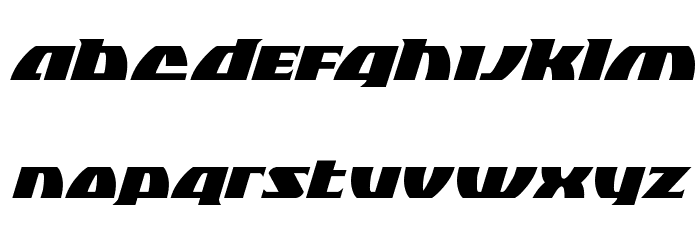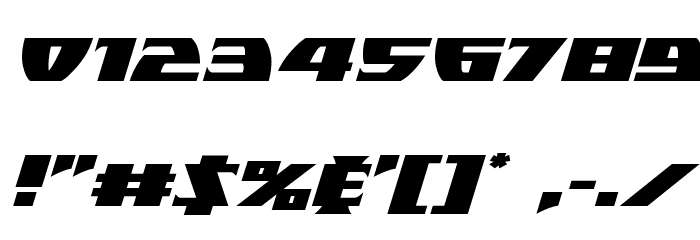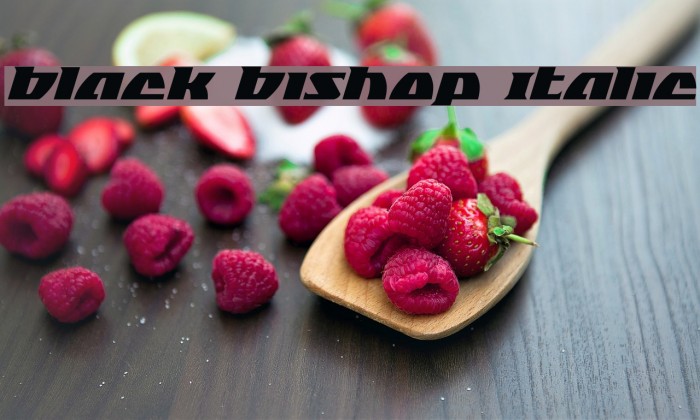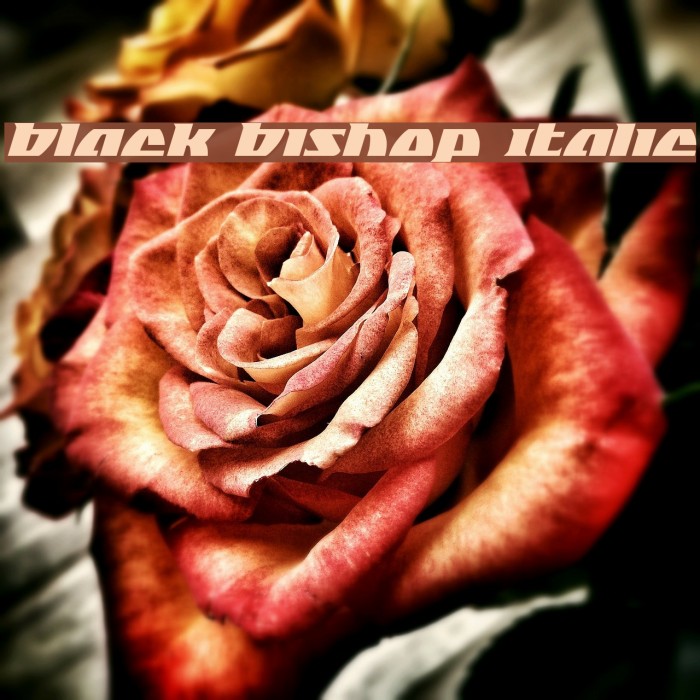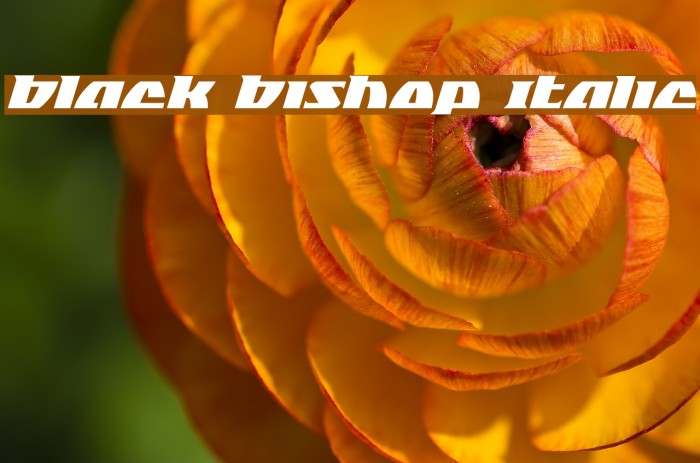
Black Bishop Italic Font
This font features a bold and dynamic style with a distinct italic slant, giving it a sense of movement and energy. The characters are thick and robust, with sharp angles and a geometric structure that conveys strength and modernity. The uppercase and lowercase letters maintain a consistent style, with the lowercase letters mirroring the boldness of the uppercase. The numerals are equally bold, ensuring they stand out in any design. Special characters are designed with the same attention to detail, making them an integral part of the font's overall aesthetic. This font is ideal for projects that require a strong visual impact.
A bold, italic font with a geometric and dynamic style.
- Proposed Projects: Ideal for sports branding, dynamic posters, and modern advertising campaigns.